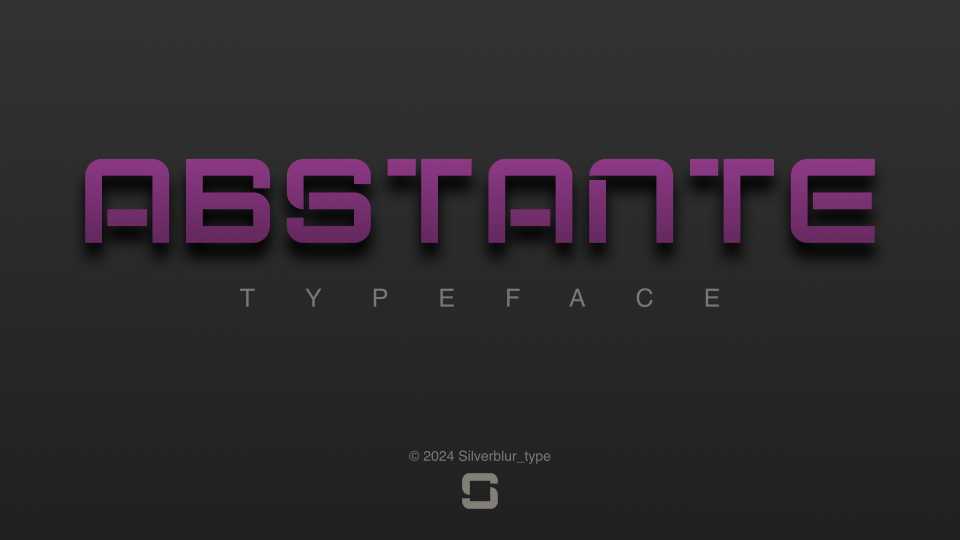
Download Abstante font, a minimalist geometric typeface designed using a few geometric shapes with constant thickness. Type of usage: graphic projects, logos, branding, packaging.
Designer: Silverblur_type